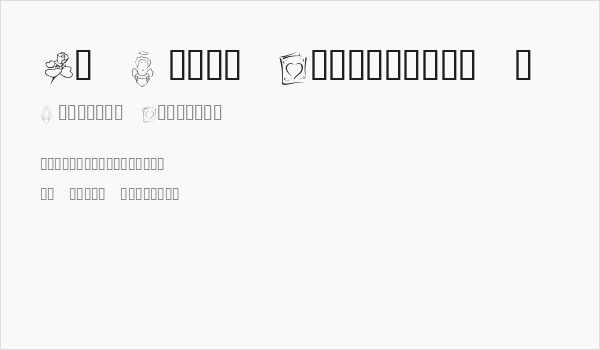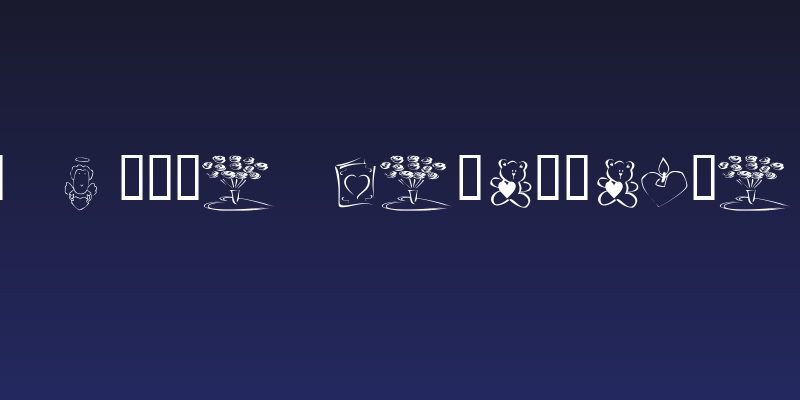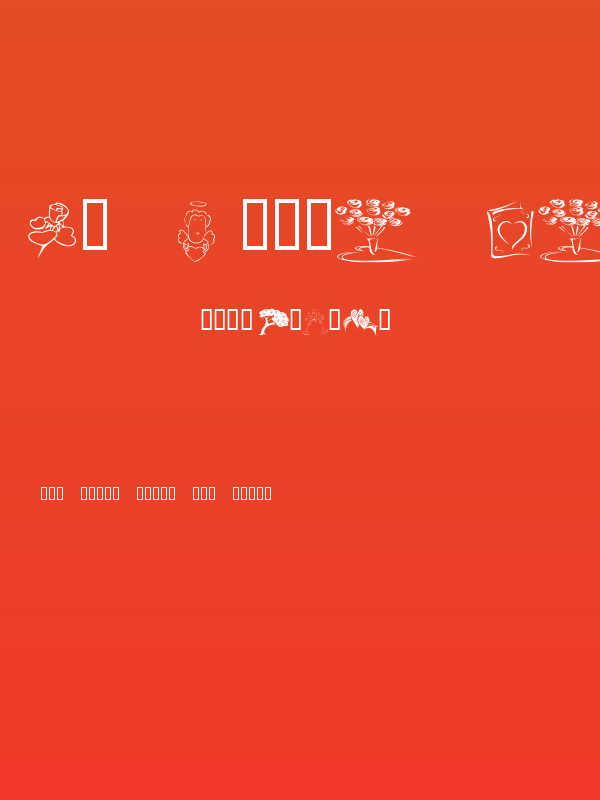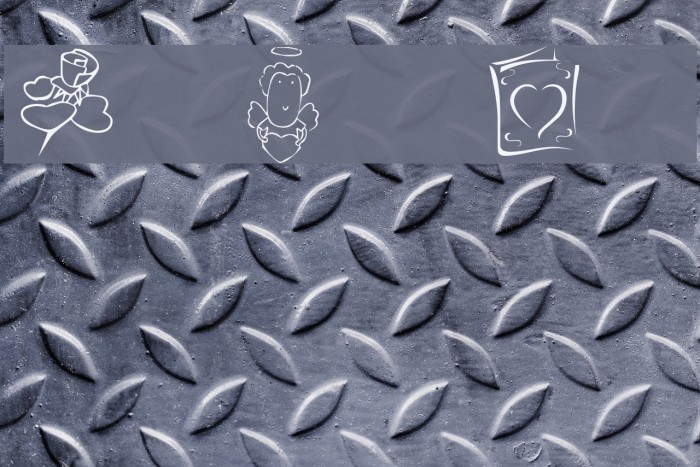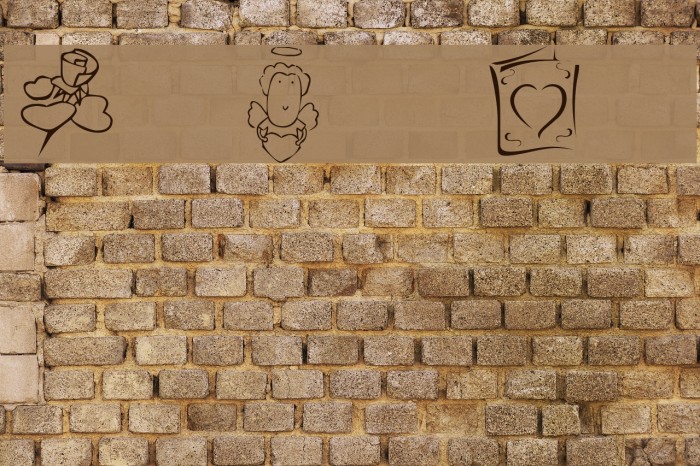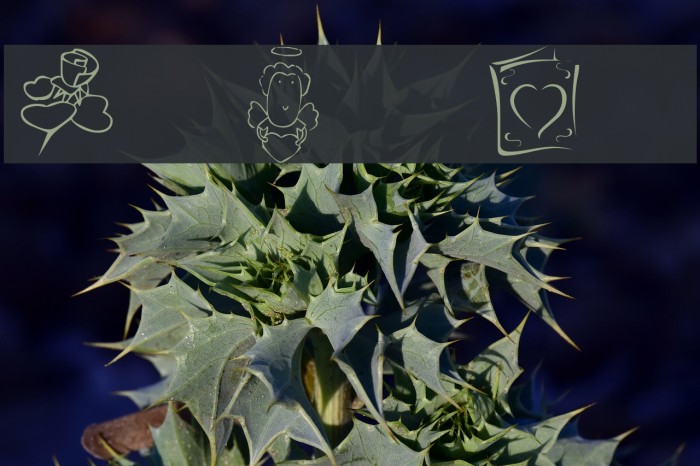
KR Cuori Divertenti 8 Font
| Style général | Playful, Romantic |
| Cas d'utilisation | Logos, Headlines, Decorative elements |
| Projets proposés | Ideal for Valentine's Day cards, wedding invitations, love-themed posters, and playful graphic designs. |